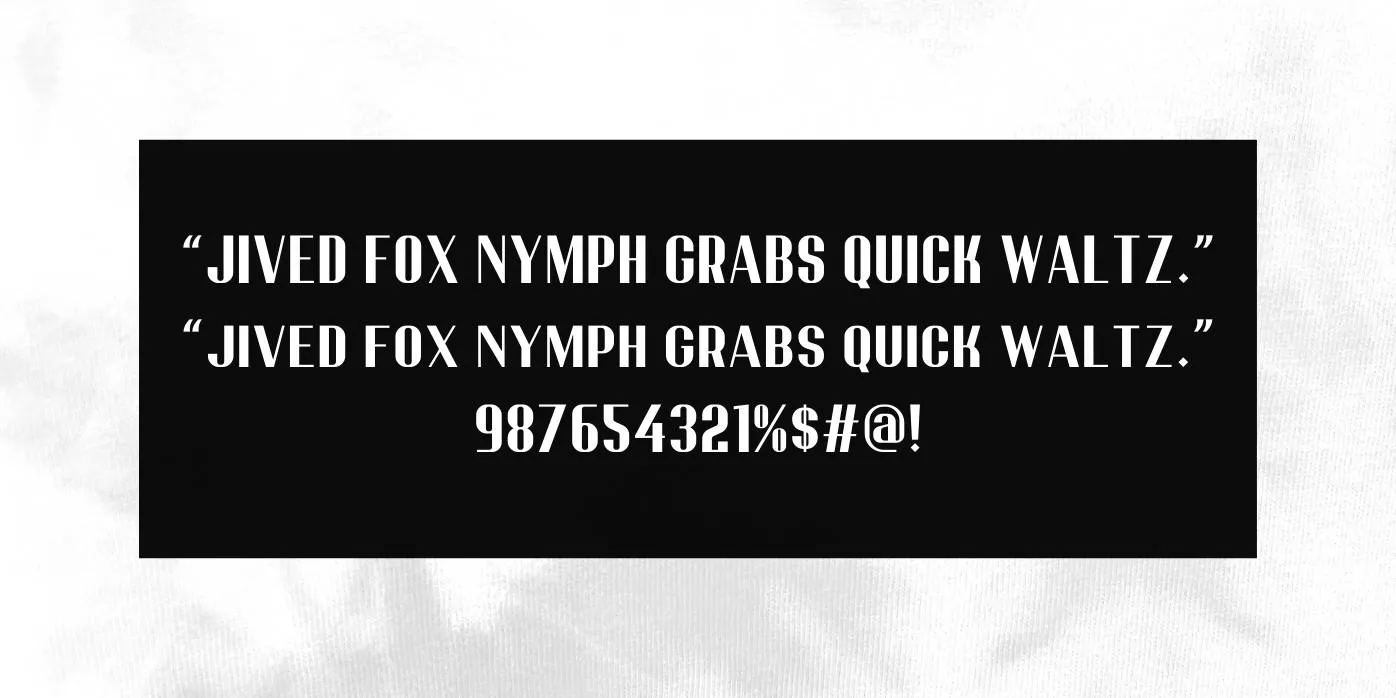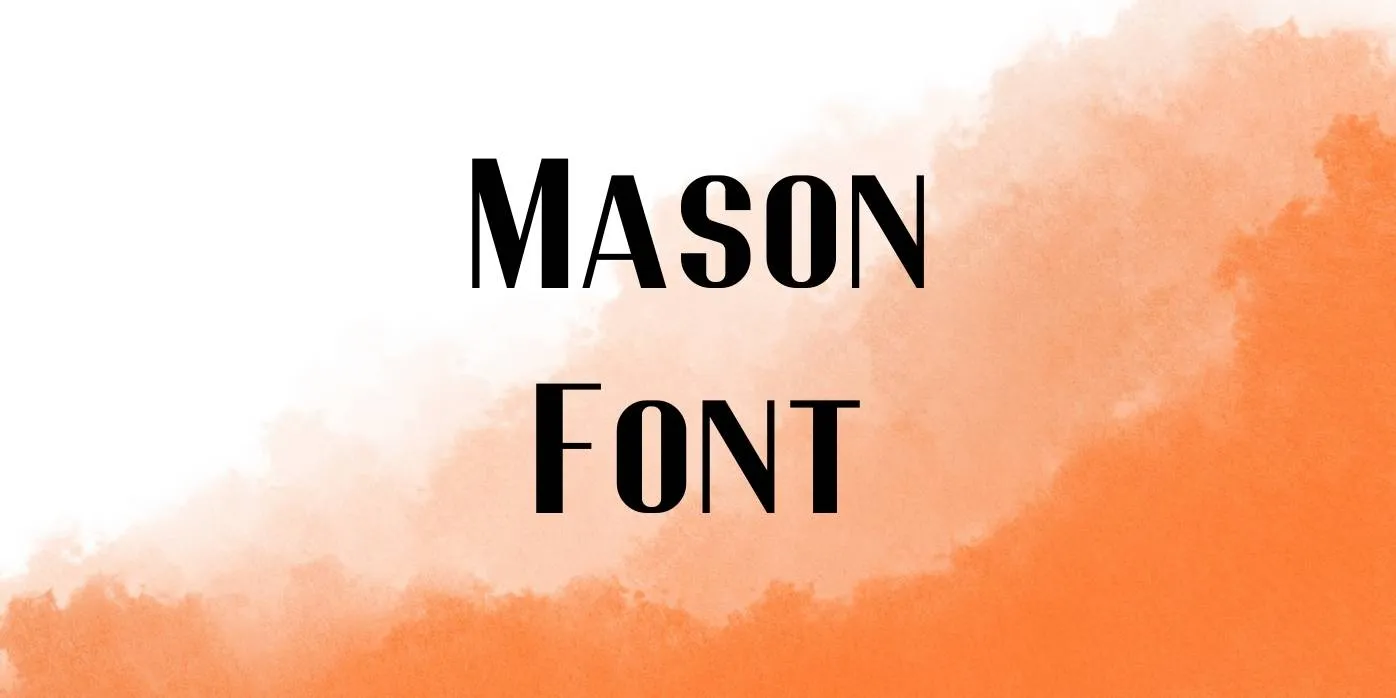
Mason Font
Mason Font is a sans-serif typeface designed by Oliver Banks in 2013. It is available in three weights—light, regular and bold—each with matching italics. This Font family contains a total of 24 different fonts—12 uprights and 12 italics. This gives you plenty of options for mixing and matching the different styles to create just the right look for your project.
This Font is a great choice for any design that needs a clean and modern sans-serif look. It’s perfect for web design, print design, advertising, and more. It has a condensed texture style and has a pairing personality with other handwritten style typefaces just like kodex font. The Font family was designed with versatility in mind.
The different weights and styles give you plenty of options for creating the perfect design. Whether you’re looking for a light and airy feel or a bold and powerful look, Mason Font has you covered.